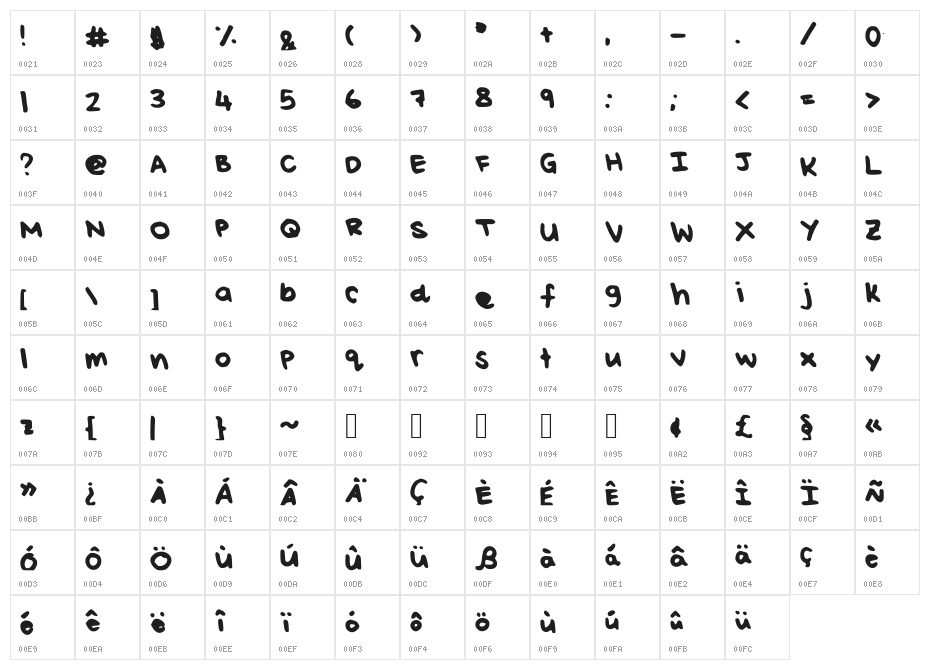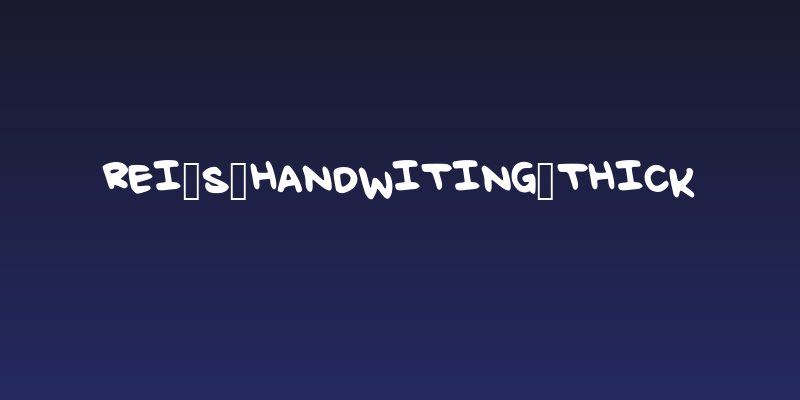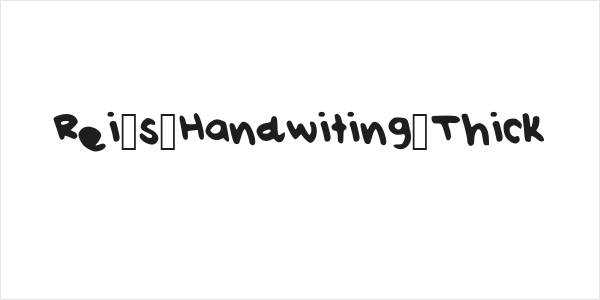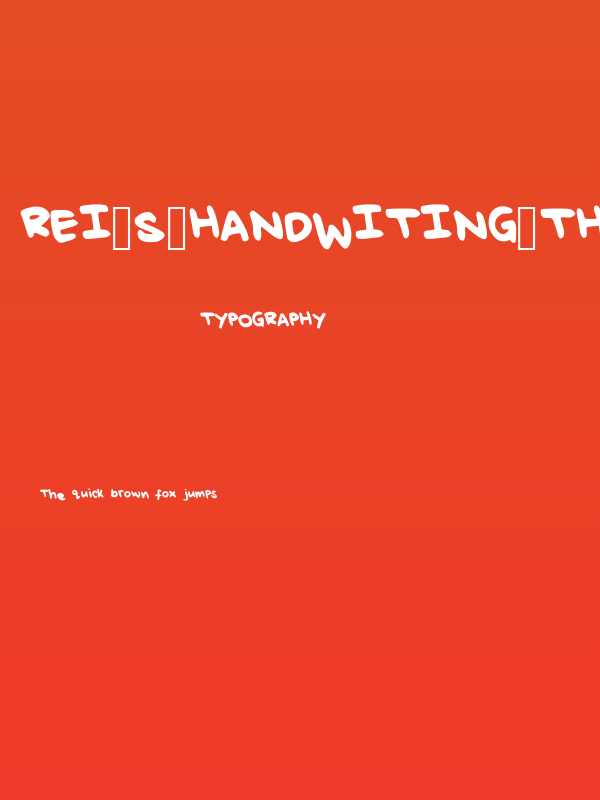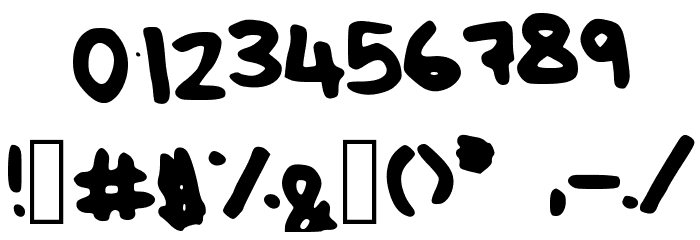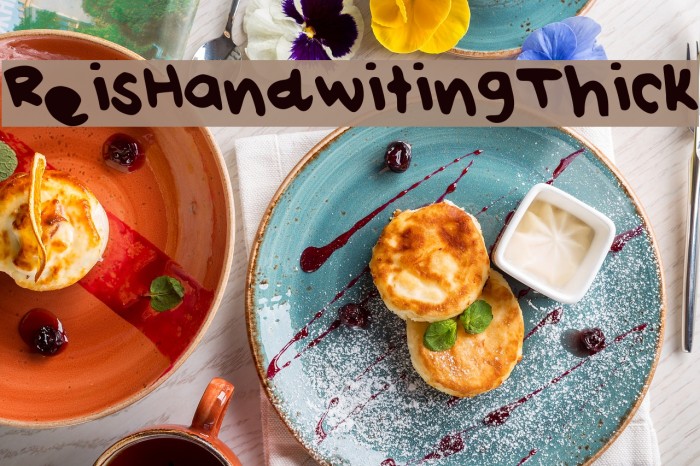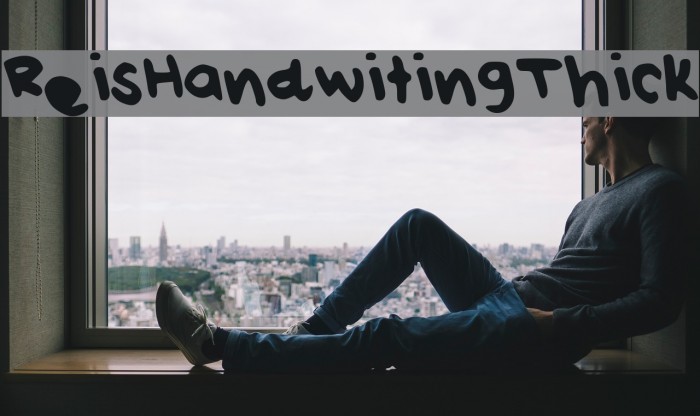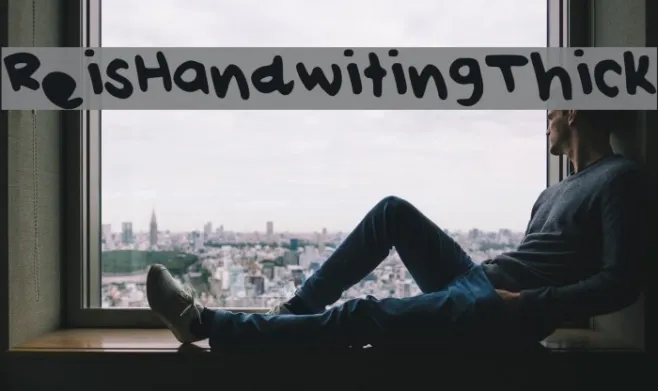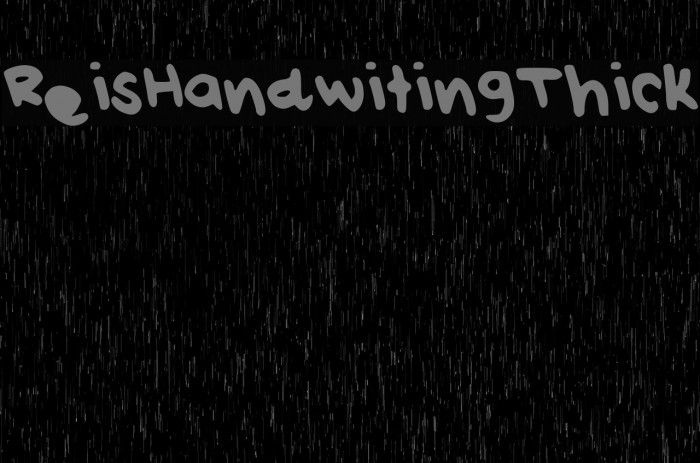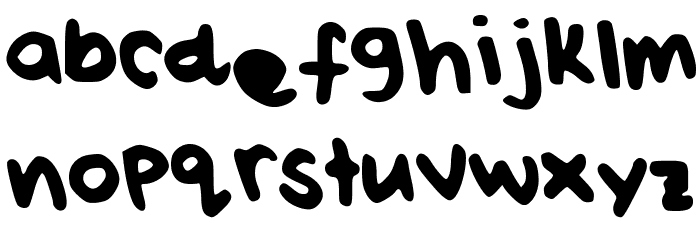
Rei_s_Handwiting_Thick Font
Rei_s_Handwiting_Thick Description
This font features a bold, playful style with a handwritten appearance. The characters are thick and rounded, giving a casual and friendly vibe. The uppercase and lowercase letters maintain a consistent thickness, contributing to a cohesive look. The numbers and special characters follow the same design principles, ensuring uniformity across all glyphs. The overall impression is informal and approachable, making it suitable for projects that require a personal touch. The font's thick strokes and rounded edges make it highly legible, even at smaller sizes.
REI_S_HANDWITING_THICK UPPERCASE
REI_S_HANDWITING_THICK LOWERCASE
REI_S_HANDWITING_THICK OTHER CHARS
| Use Case | Headlines, Logos, Informal text |
| Proposed Projects | Ideal for children's books, greeting cards, playful branding, and casual invitations. |